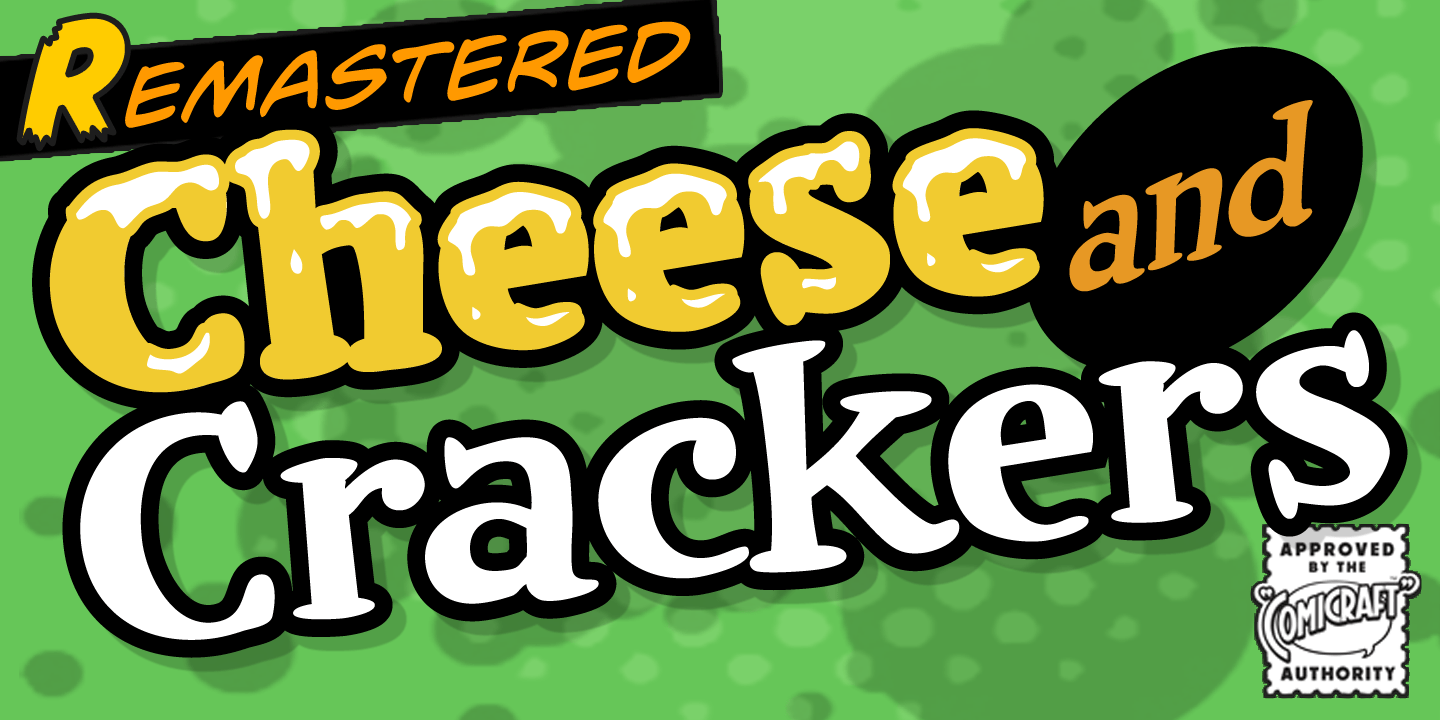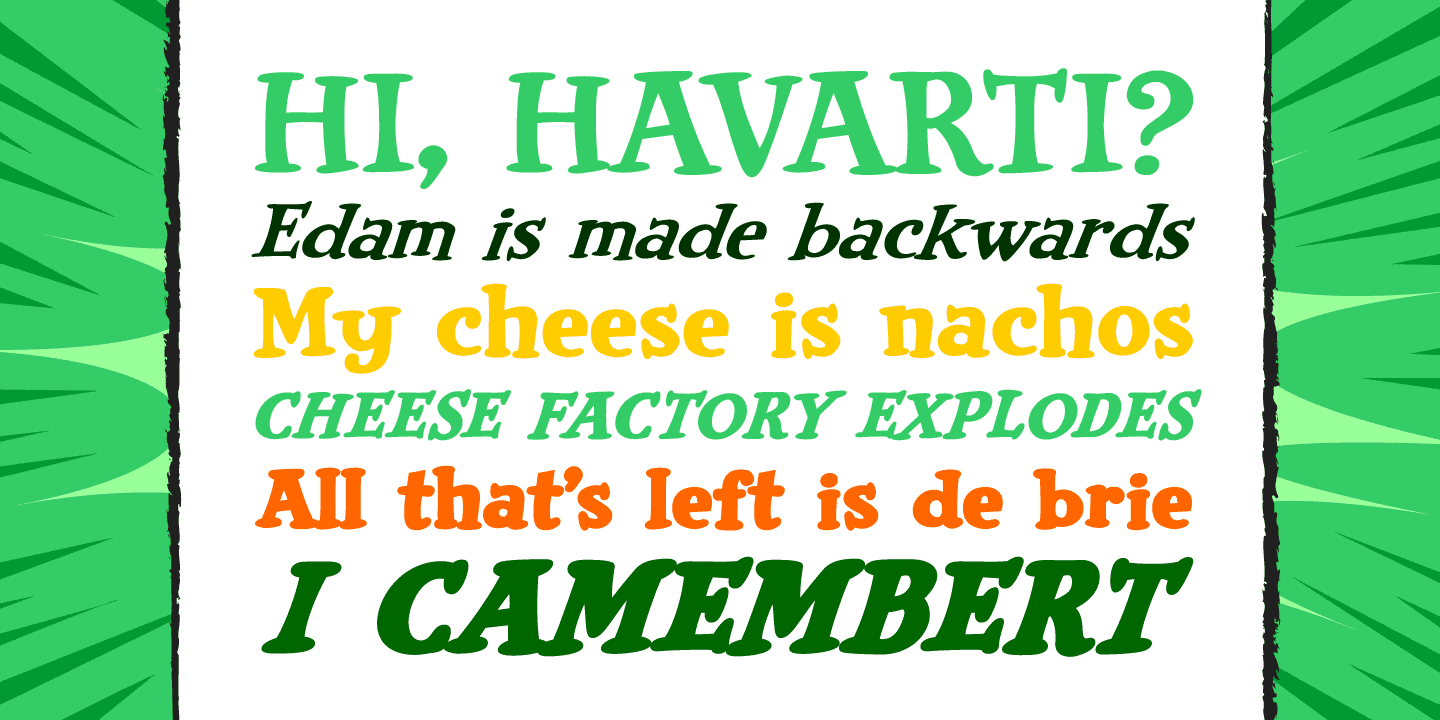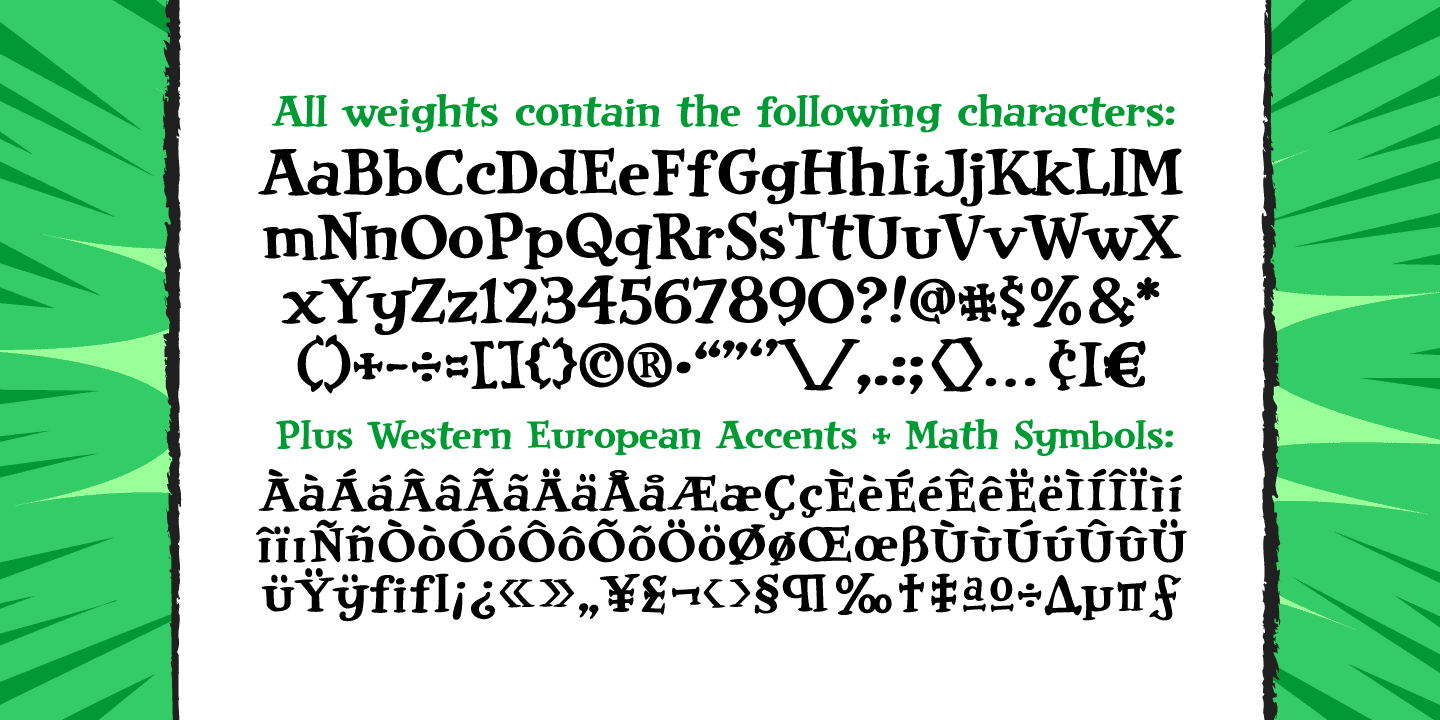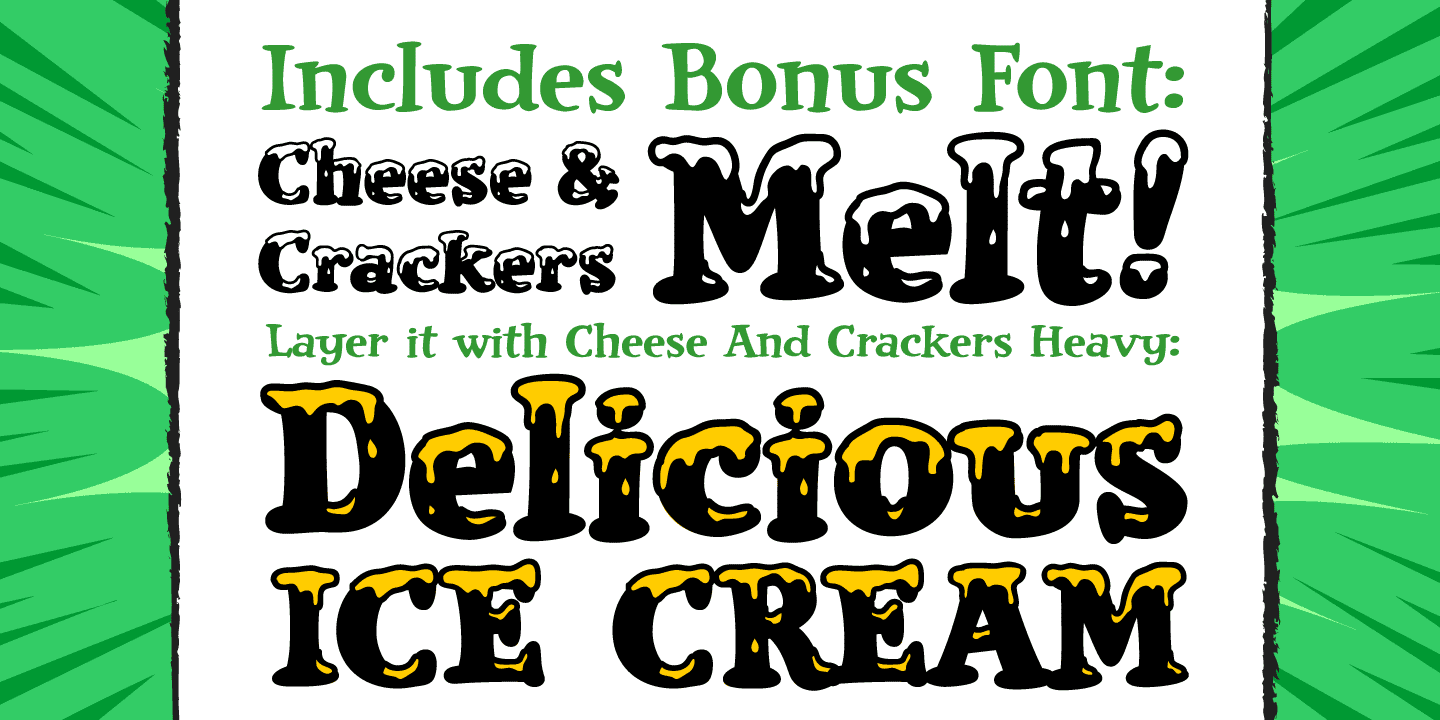
Cheese and Crackers
Font Family by Comicraft Fonts
Don't forget the Cheese! CHEESE AND CRACKERS is a delightfully light and creamy font, originally created for lettering Wallace & Gromit in Nickelodeon Magazine.